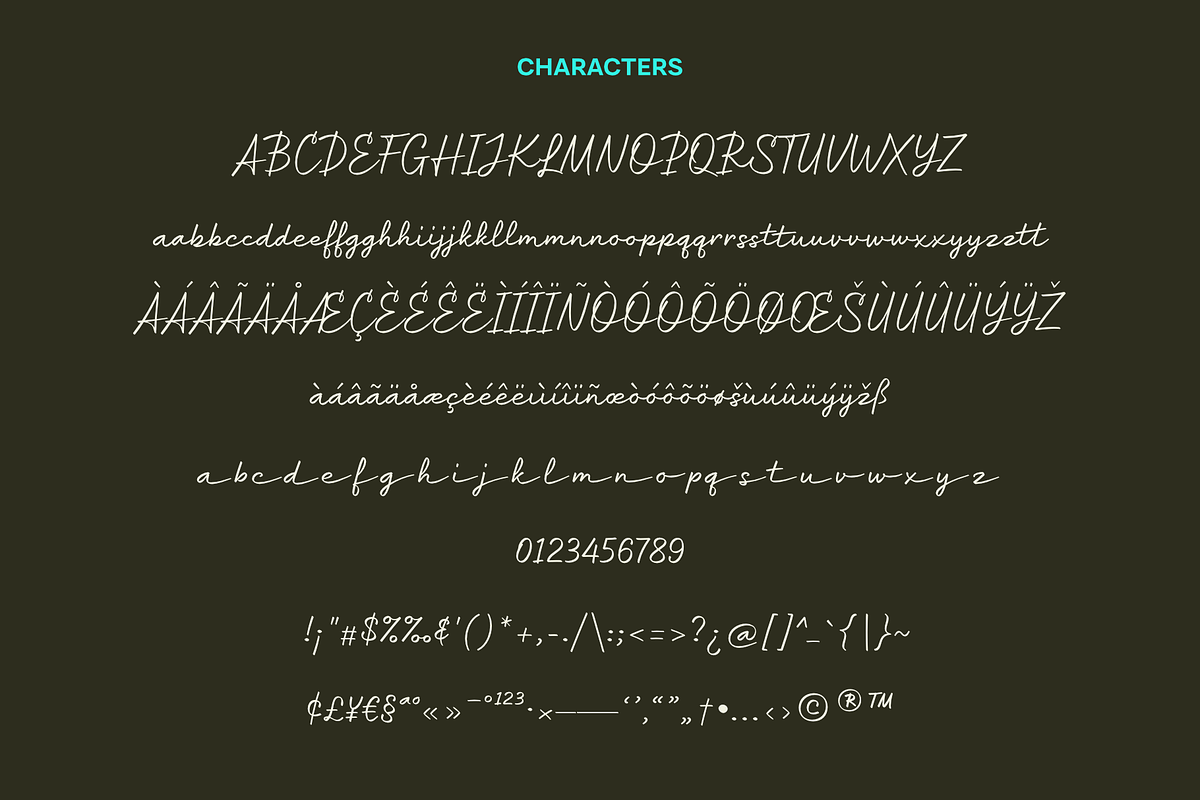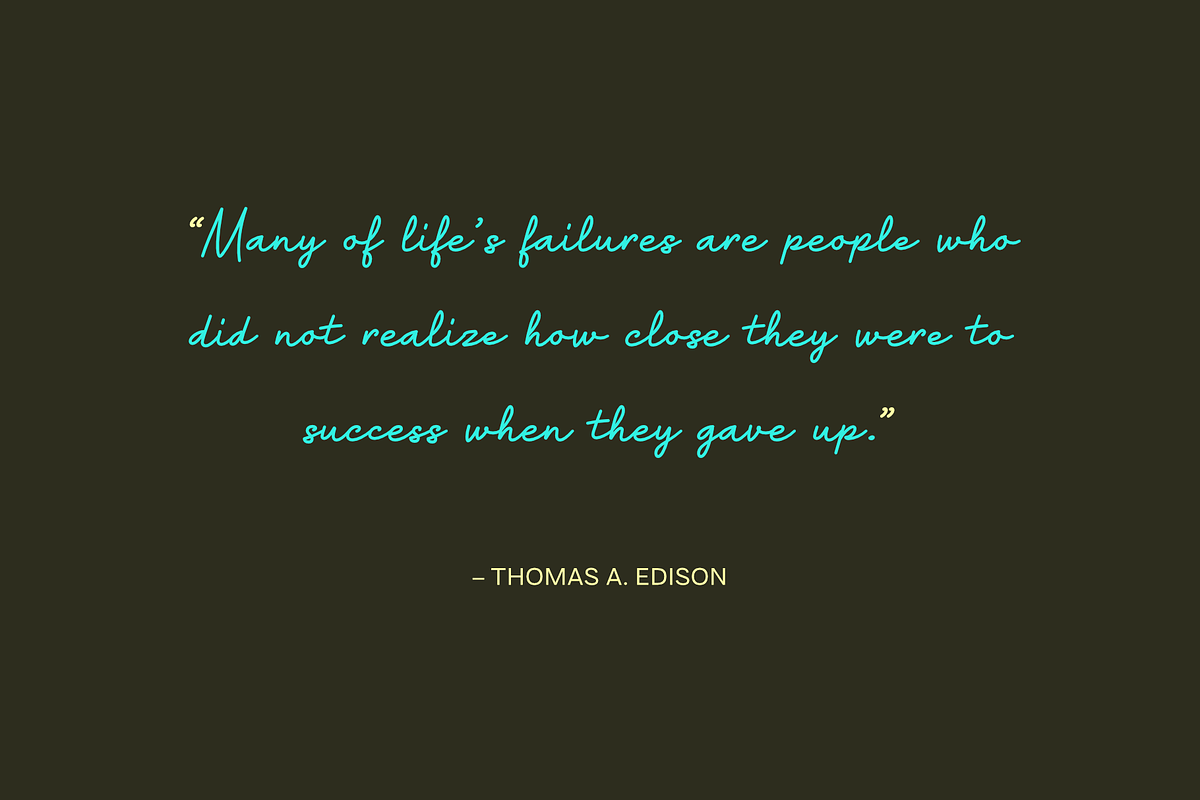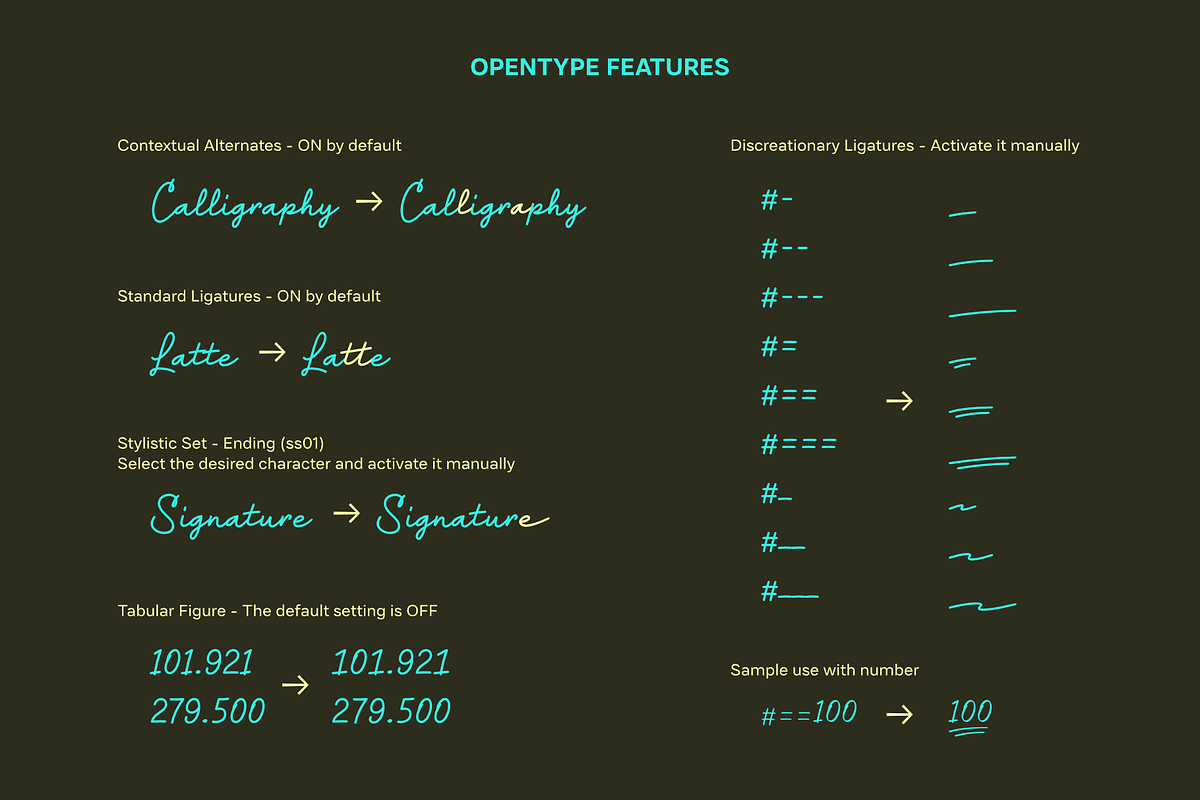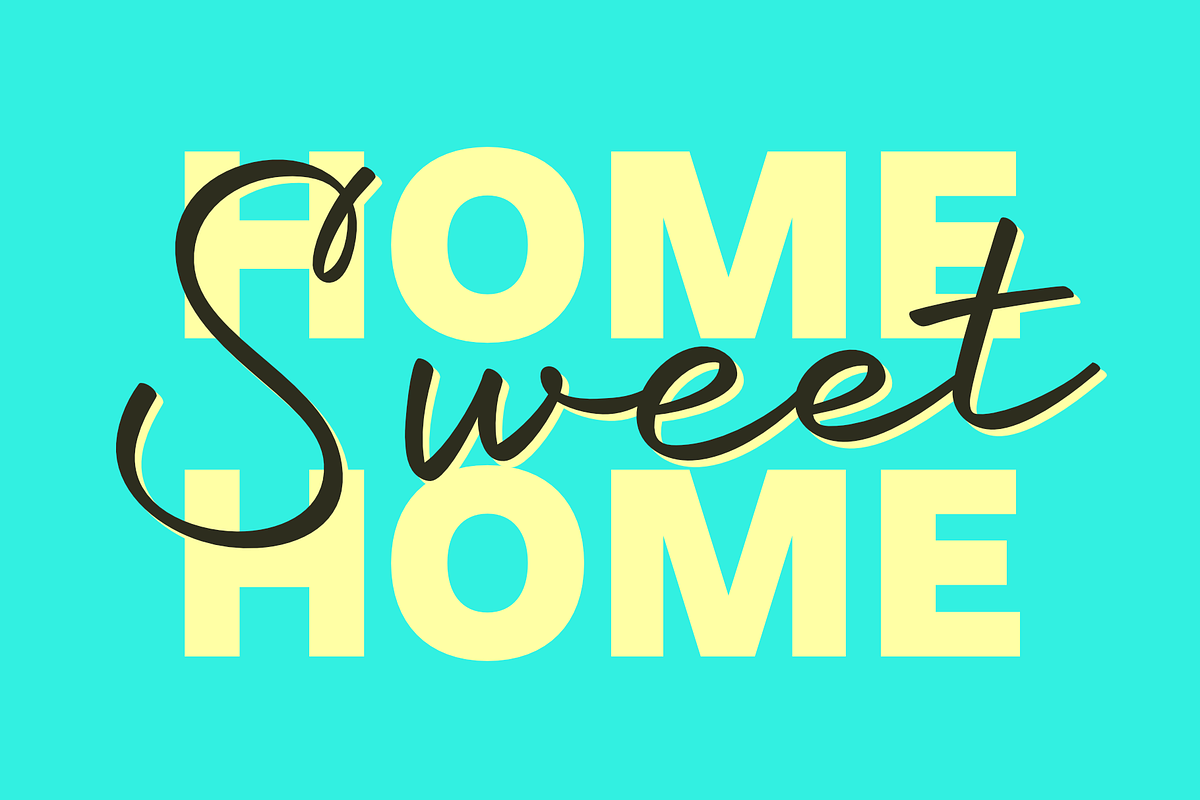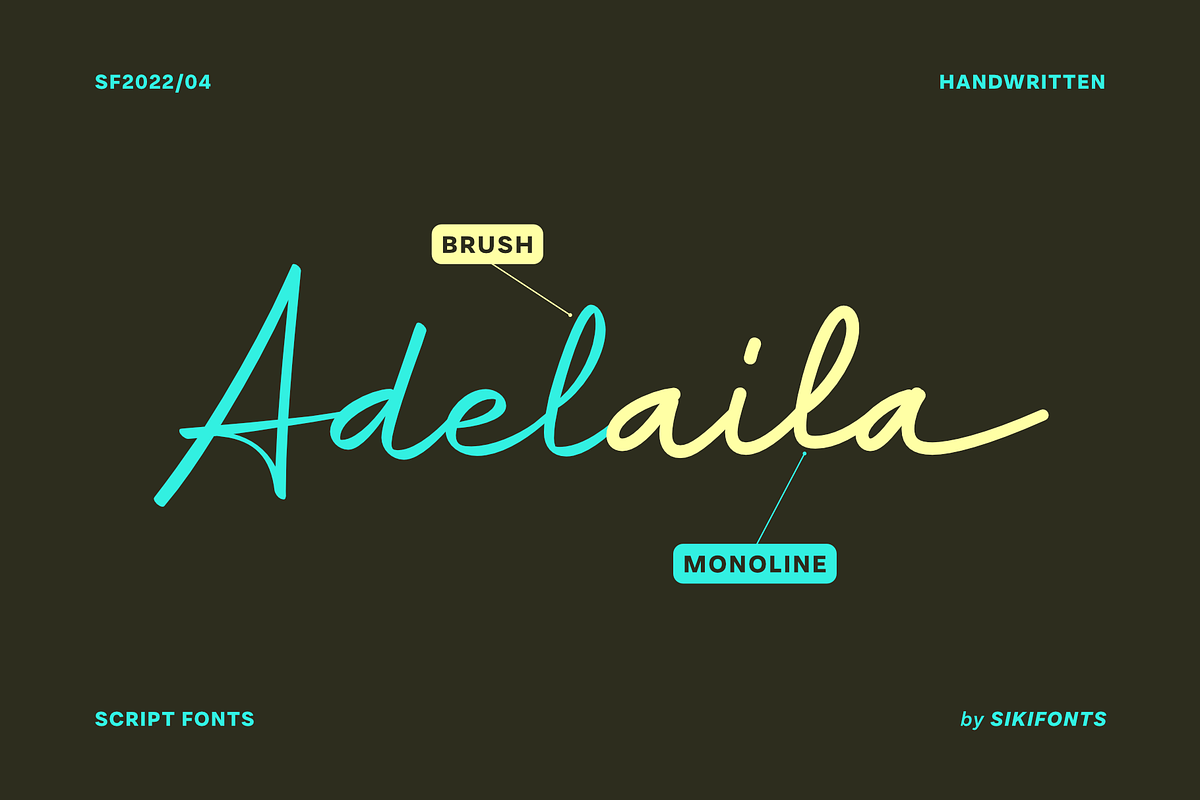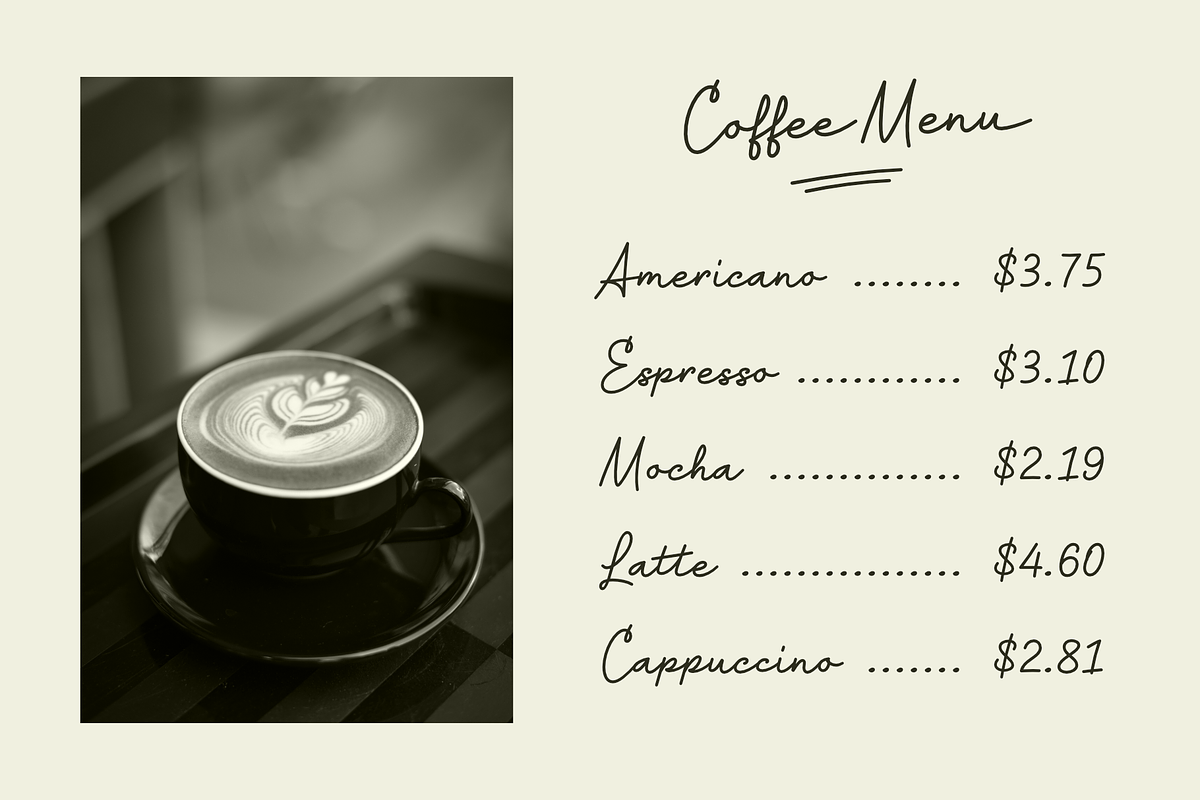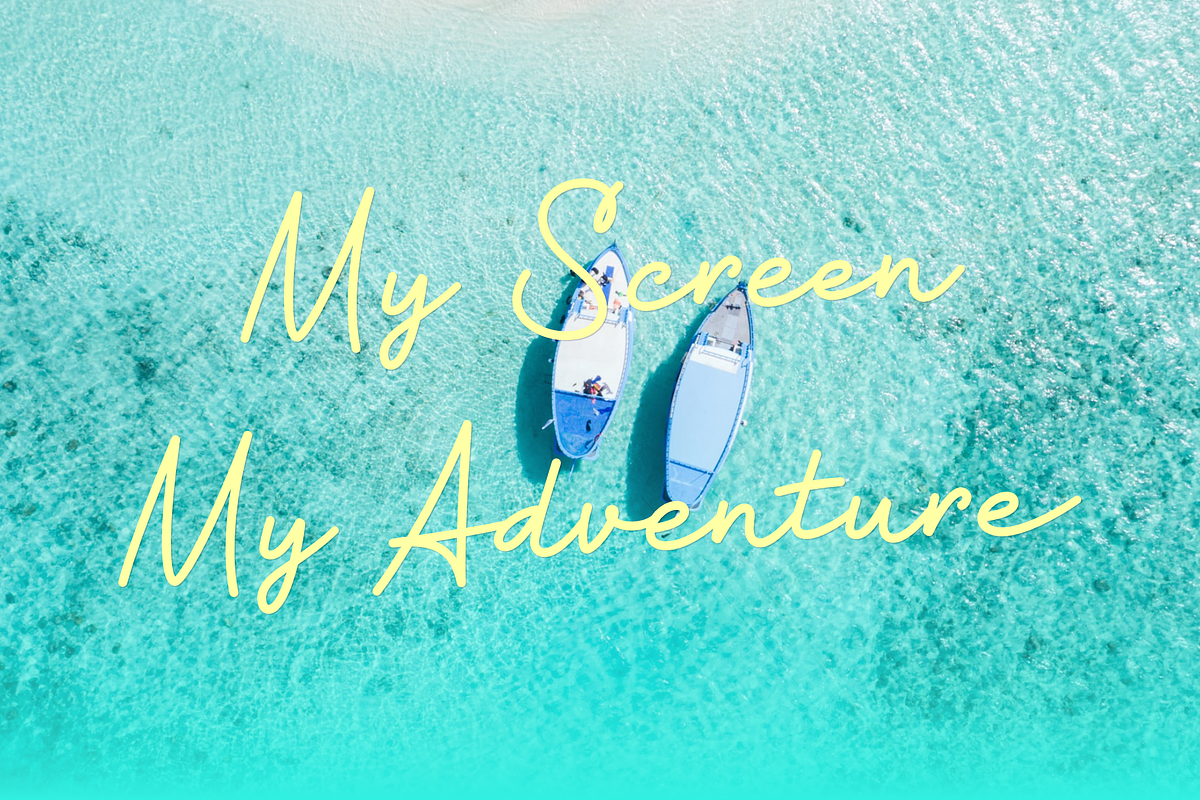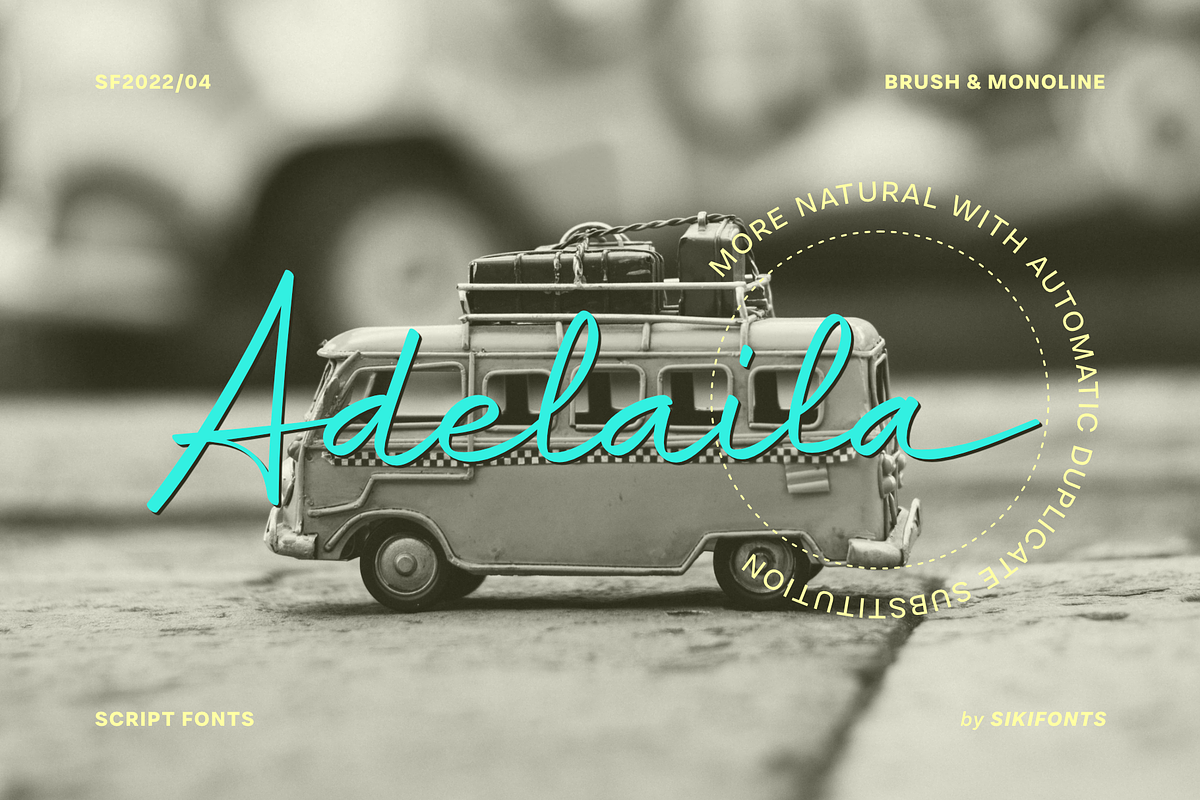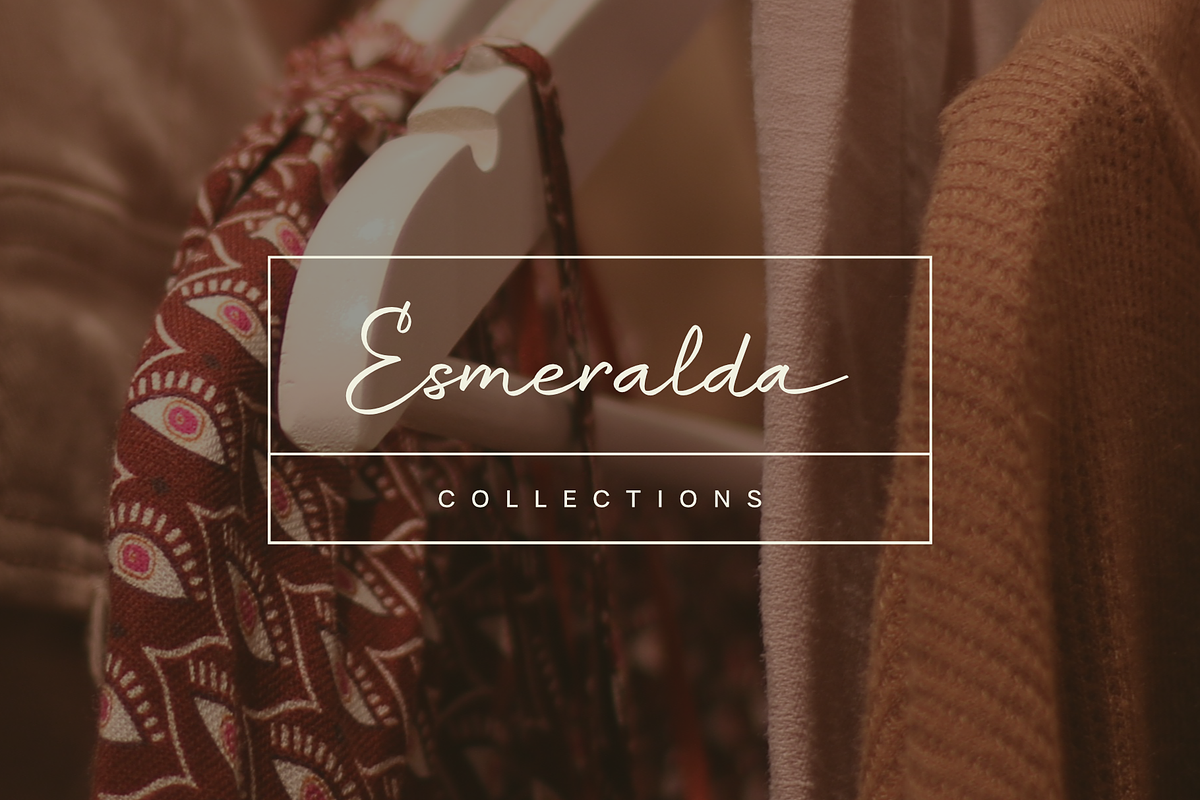
Adelaila
Adelaila is a simple handwritten script font that comes in two styles, brush and monoline. With the Contextual Alternate (OpenType) feature, if you type a word with double letters, as in 'sweet' 'mono' or 'creative', the next duplicate lowercase character will be automatically replaced by an alternate character. This will make the handwritten font appear more natural.
Other features:
- Stylistic Set - Ending (ss01)
- Tabular Figure
- Discretionary Ligatures to access swash glyphs with combination symbols